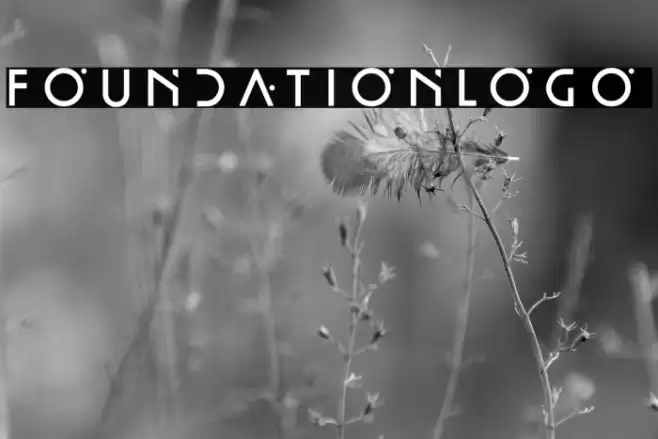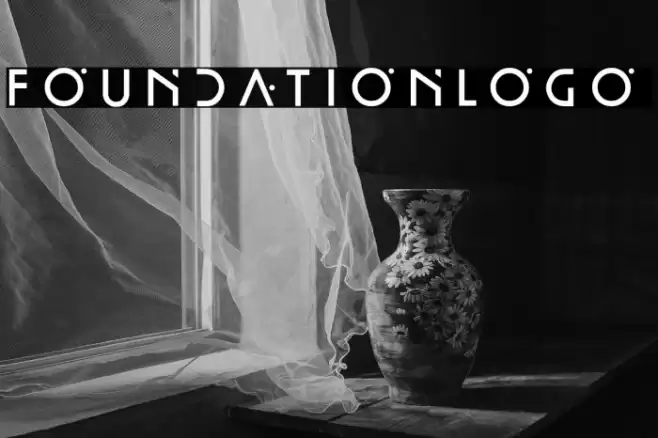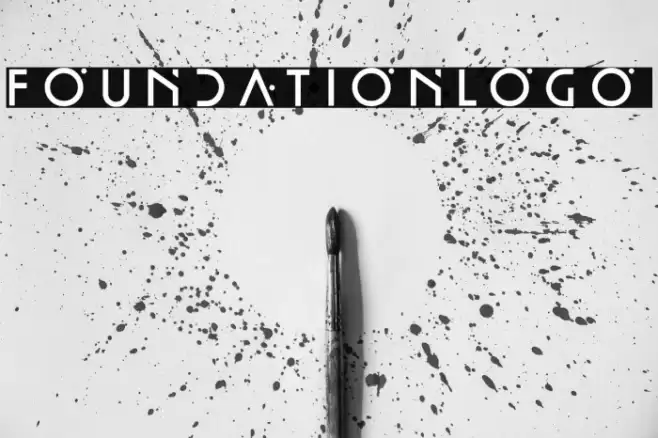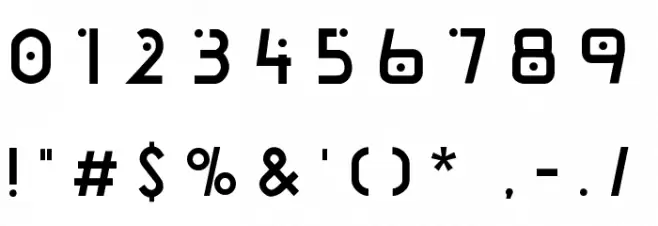
FoundationLogo Font
FoundationLogo Description
This font features a modern, geometric design with a unique blend of sharp angles and smooth curves. The uppercase letters are distinct with a futuristic aesthetic, characterized by consistent stroke widths and minimalistic forms. The lowercase letters maintain a similar style, offering a cohesive look across different text sizes. Numbers are bold and easily readable, with a slight angularity that complements the overall design. Special characters are crafted with the same attention to detail, ensuring they integrate seamlessly with the alphabetic characters. This font's clean and contemporary appearance makes it suitable for a variety of design projects.
A modern, geometric font with a futuristic and minimalistic design from Uncategorized fonts.
- Proposed Projects: Ideal for branding, technology-related projects, modern advertising, and digital interfaces.
- Use Case: Headlines, Logos, Digital interfaces